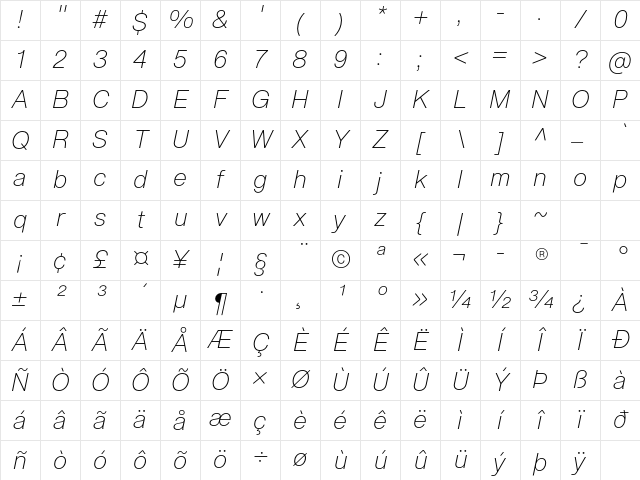
Complete Sublima ExtraLight Italic glyph index. Displaying only characters natively supported by Sublima ExtraLight Italic font.
Sublima ExtraLight is a composed and adaptable typeface that performs quietly and consistently across a wide range of design contexts. The slanted form adds forward momentum and visual energy. Its slender proportions lend an understated elegance to any composition.
Pro Tip: Use Sublima ExtraLight for emphasis, pull quotes, and subheadings where its slanted energy can add rhythm to the layout.